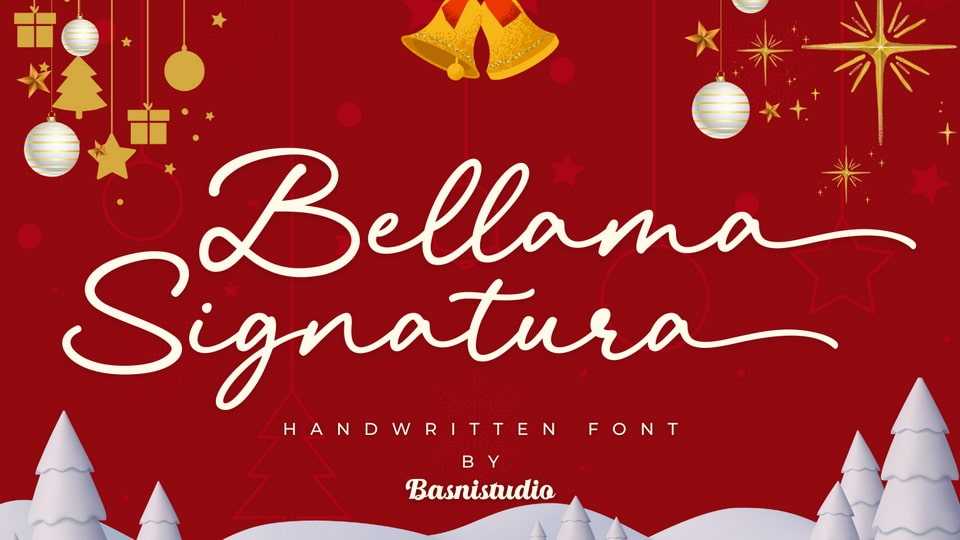
Download Bellama font, a signature style typeface that adds an elegant, versatile touch to everything from branding and social media to invitations and packaging.